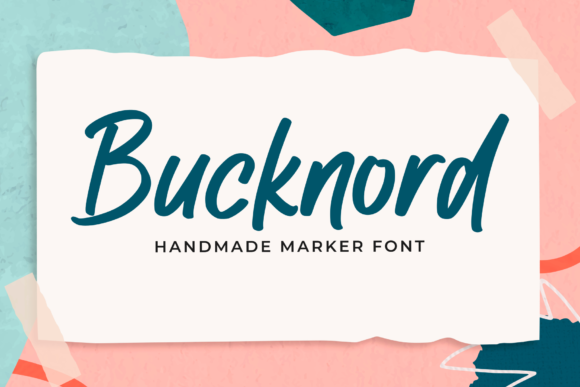
Introducing Bucknord Font: The Ultimate Handmade Marker Font for Creative Projects
In the world of typography, fonts play a crucial role in conveying the tone and personality of a brand or design. When it comes to creating visually appealing and engaging content, selecting the right font is essential. If you’re looking for a font that exudes a sense of playfulness and creativity, look no further than Bucknord Font. In this article, we’ll explore the features and benefits of Bucknord, a cool and playful handmade marker font that is perfect for a wide range of design projects.
What is Bucknord Font?
Bucknord is a unique and charming handmade marker font that is designed to add a personal touch to your designs. With its ligatures and handwriting feels, this font is perfect for creating logos, product packaging, invitations, branding, headlines, signage, labels, book covers, posters, quotes, and more. Whether you’re a designer, artist, or DIY enthusiast, Bucknord Font is an excellent choice for anyone looking to add a creative and playful twist to their projects.
Key Features of Bucknord Font
- Handmade with love: Bucknord Font is carefully crafted by hand, giving it a unique and authentic feel.
- Marker font: This font is designed to mimic the look of marker pens, adding a playful and creative touch to your designs.
- Ligatures: Bucknord Font comes with ligatures, which allow for a more natural and fluid writing experience.
- Handwriting feels: The font’s handwriting-like quality adds a personal and human touch to your designs.
- Multilingual support: Bucknord Font supports multiple languages, making it a great choice for global brands and designers.
Endless Design Possibilities with Bucknord Font
Bucknord Font is an incredibly versatile font that can be used for a wide range of design projects. Here are some ideas to get you started:
- Logos and branding: Create a unique and memorable logo for your business or brand with Bucknord Font.
- Product packaging: Add a personal touch to your product packaging with this playful and creative font.
- Invitations and events: Use Bucknord Font to create beautiful and eye-catching invitations for weddings, parties, and other events.
- Headlines and signage: Make a statement with Bucknord Font’s bold and playful style, perfect for headlines and signage.
- Labels and stickers: Create custom labels and stickers with Bucknord Font for a unique and personalized look.
- Book covers and posters: Use Bucknord Font to create eye-catching book covers and posters that grab attention.
- Quotes and typography art: Create stunning typography art with Bucknord Font, perfect for quotes, lyrics, and more.
Tips and Tricks for Using Bucknord Font
To get the most out of Bucknord Font, here are some tips and tricks to keep in mind:
- Experiment with colors: Bucknord Font looks great in a variety of colors, so don’t be afraid to experiment and find the perfect hue for your design.
- Mix and match: Combine Bucknord Font with other fonts to create a unique and interesting typography style.
- Pay attention to spacing: Make sure to adjust the spacing between letters and words to create a natural and fluid look.
- Use it for display text: Bucknord Font is perfect for display text, such as headlines and titles, where you want to make a bold statement.
The Benefits of Using Bucknord Font
So why choose Bucknord Font for your design projects? Here are just a few benefits of using this amazing font:
- Unique and creative: Bucknord Font adds a touch of personality and creativity to your designs, setting you apart from the crowd.
- Easy to read: Despite its playful nature, Bucknord Font is easy to read and understand, making it perfect for body text and captions.
- Highly versatile: Bucknord Font can be used for a wide range of design projects, from logos and branding to book covers and posters.
- Supports multiple languages: Whether you’re designing for a global audience or just want to add a touch of international flair, Bucknord Font has got you covered.
In conclusion, Bucknord Font is an incredible handmade marker font that is perfect for designers, artists, and DIY enthusiasts looking to add a creative and playful touch to their projects. With its ligatures, handwriting feels, and multilingual support, Bucknord Font is an excellent choice for a wide range of design projects. Whether you’re creating logos, product packaging, invitations, or posters, Bucknord Font is sure to impress. So why wait? Download Bucknord Font today and start creating stunning designs that showcase your personality and creativity!